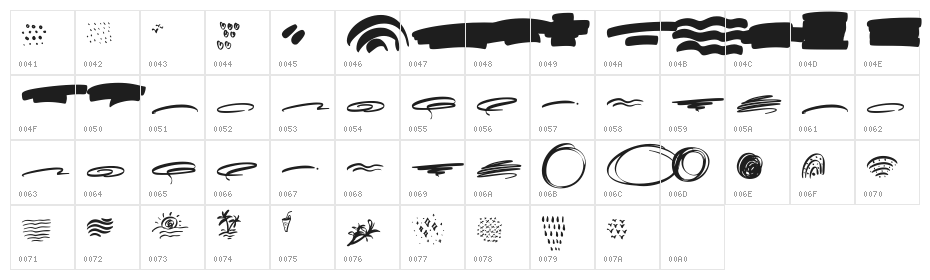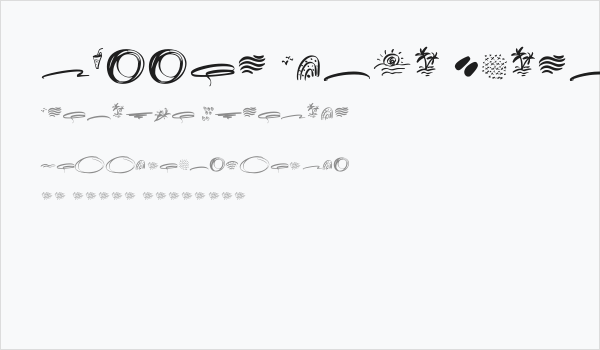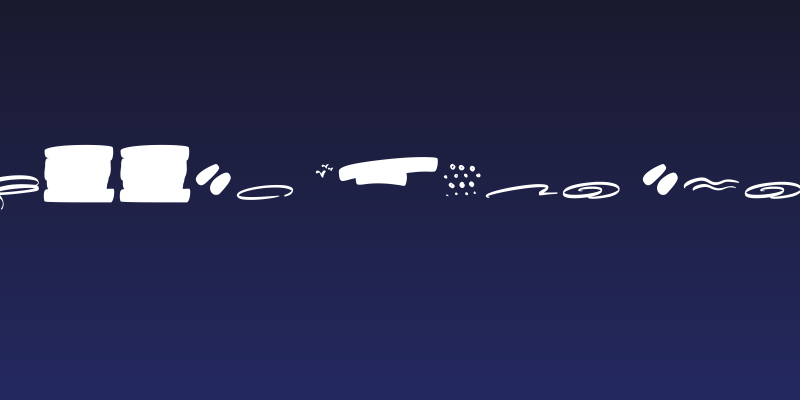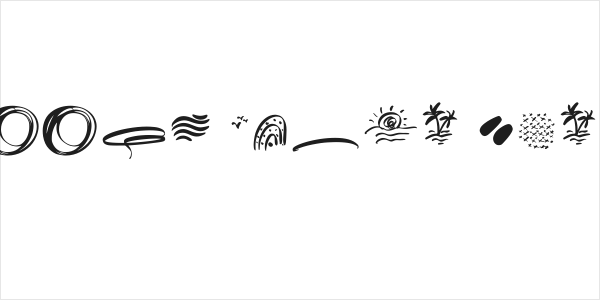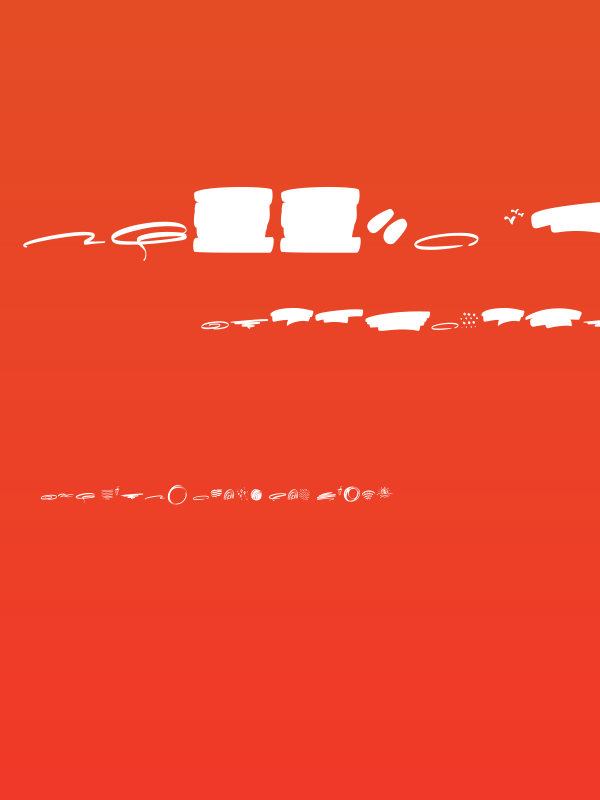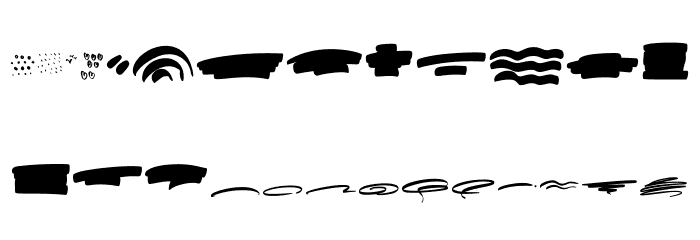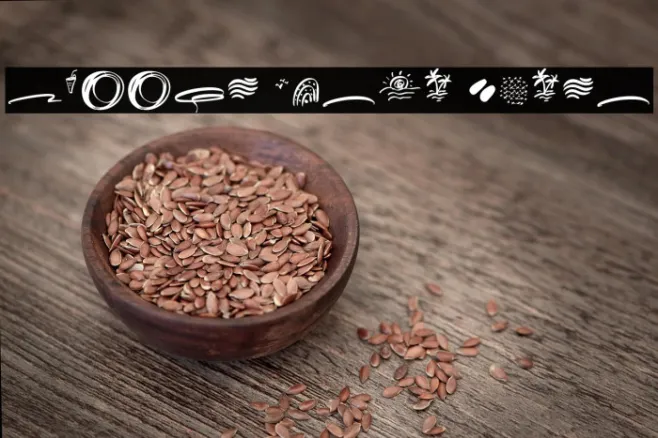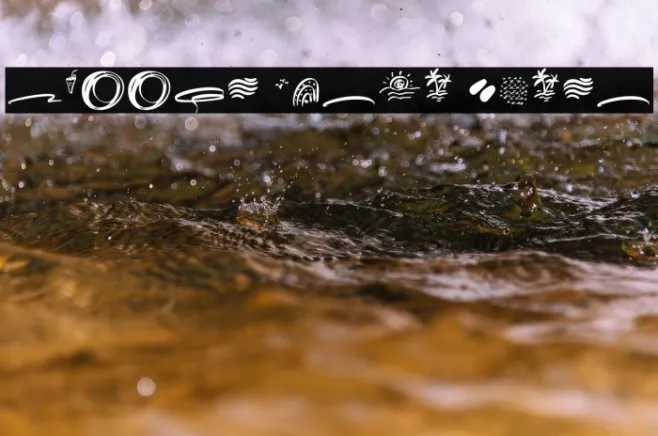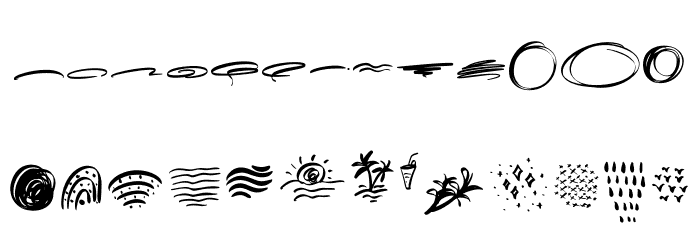
Summer Coast Extra Font
Summer Coast Extra Description
This set of symbols and shapes evokes a playful and artistic representation of summer themes. The elements include abstract forms resembling waves, suns, palm trees, and other beach-related imagery. The style is hand-drawn, with a whimsical and carefree aesthetic. The strokes vary in thickness, adding a dynamic and lively feel to each character. The overall design is reminiscent of doodles or sketches, capturing the essence of a relaxed and fun summer day. These elements are perfect for creative projects that aim to convey a sense of leisure and enjoyment.
| Use Case | Logos, Illustrations, Decorative elements |
| Proposed Projects | Ideal for summer event posters, beach party invitations, children's activity books, and creative social media graphics. |